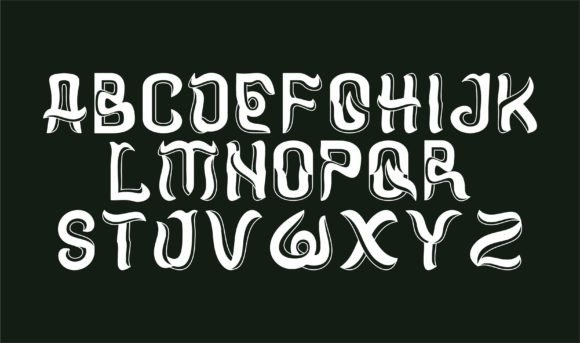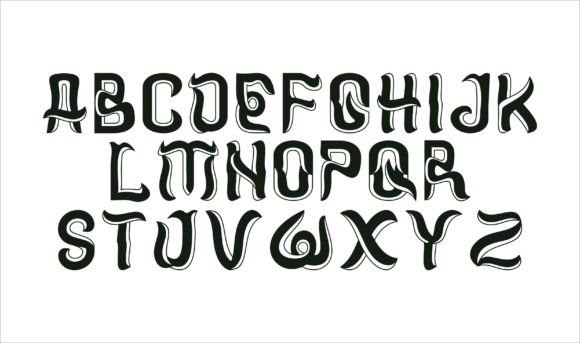
Introduction to Malape Dawuana Font
As designers, we’ve all been there – staring at a blank canvas, struggling to find the perfect font to bring our creative project to life. The search can be daunting, but what if we told you that the solution lies in the majestic all-caps display font, Malape Dawuana Font? This unique and creative typeface has the power to elevate any design, making it an invaluable addition to your design resource library.
With its stunning high-quality design, Malape Dawuana Font is the perfect choice for designers seeking a versatile and eye-catching font. Whether you’re working on a free download project or a high-end commercial design, this font is sure to impress. Its transparent background and sleek design make it a valuable asset for any creative project, allowing you to add a touch of sophistication and elegance to your work.
Key Features of Malape Dawuana Font
- Unique characteristics include a bold, modern aesthetic and a wide range of stylistic options for creative expression.
Honest Review: Malape Dawuana Font
I recently had the chance to explore the Malape Dawuana Font, and I must say it’s an intriguing addition to any design resource collection.
What works well: ✨ The font’s unique, hand-painted aesthetic makes it perfect for creative projects that require a personal touch. Its high quality and detailed design elements will surely elevate any visual content. I also appreciate the fact that the font is available for free download, which is a great bonus for designers on a budget.
What doesn’t work so well: ⚠️ While the font’s transparent background allows for seamless integration into any design, I found the character set to be somewhat limited. It would be great to see more glyphs and language support in future updates.
Overall, I’m impressed with the Malape Dawuana Font’s potential, but I think it still needs some refinement to become a go-to choice for designers. With a bit more development, I believe this font could become a top design resource for creative projects.
- Perfect for personal projects or designs that require a unique, hand-painted look
- High quality design elements and detailed aesthetic
- Transparent background for seamless integration
- Limited character set and language support
Getting the Most Out of Malape Dawuana Font
To get the most out of Malape Dawuana Font, consider using it on a transparent background to add a touch of elegance to your design. This font is perfect for creative projects that require a high-quality, unique font. You can also experiment with different font sizes and styles to create a visually appealing design.
Malape Dawuana Font is perfect for a variety of creative projects, including logos, branding materials, and marketing materials. Its unique design makes it ideal for use in design resources, such as free downloads, templates, and graphics. You can also use it to create high-quality graphics for social media, websites, and other digital platforms.